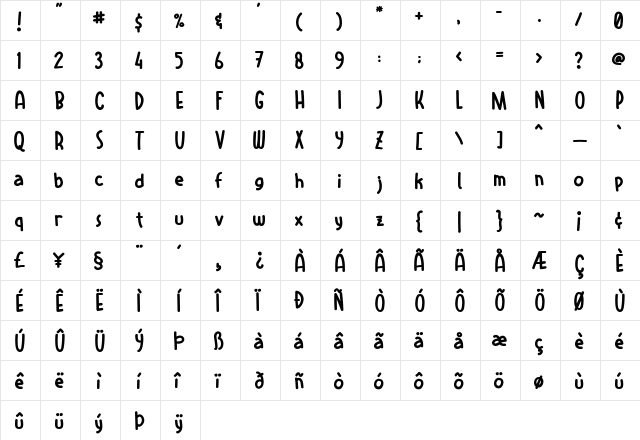
Lets Play Regular
| Foundry | alexatype |
| Designer | alexatype |
Design Context for Lets Play Typeface
Lets Play offers clean, dependable letterforms without strong stylistic allegiance, making it a practical choice for designers who need flexibility.